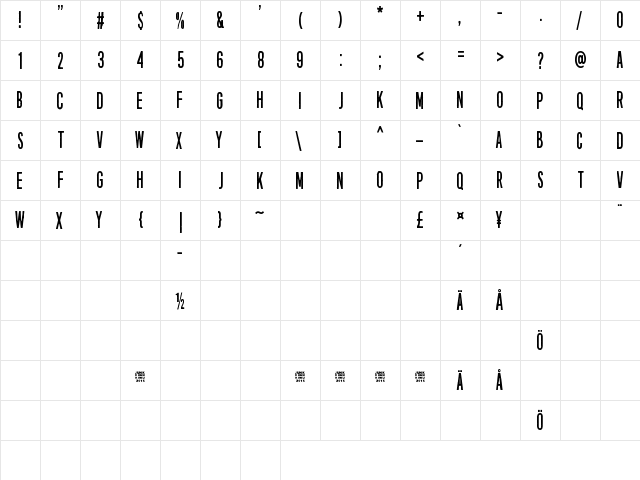
Eight Days A Week Regular
Design Context for Eight Days A Week Typeface
Eight Days A Week takes a measured approach to typography — its balanced proportions and neutral character make it a reliable workhorse for both digital and print work.